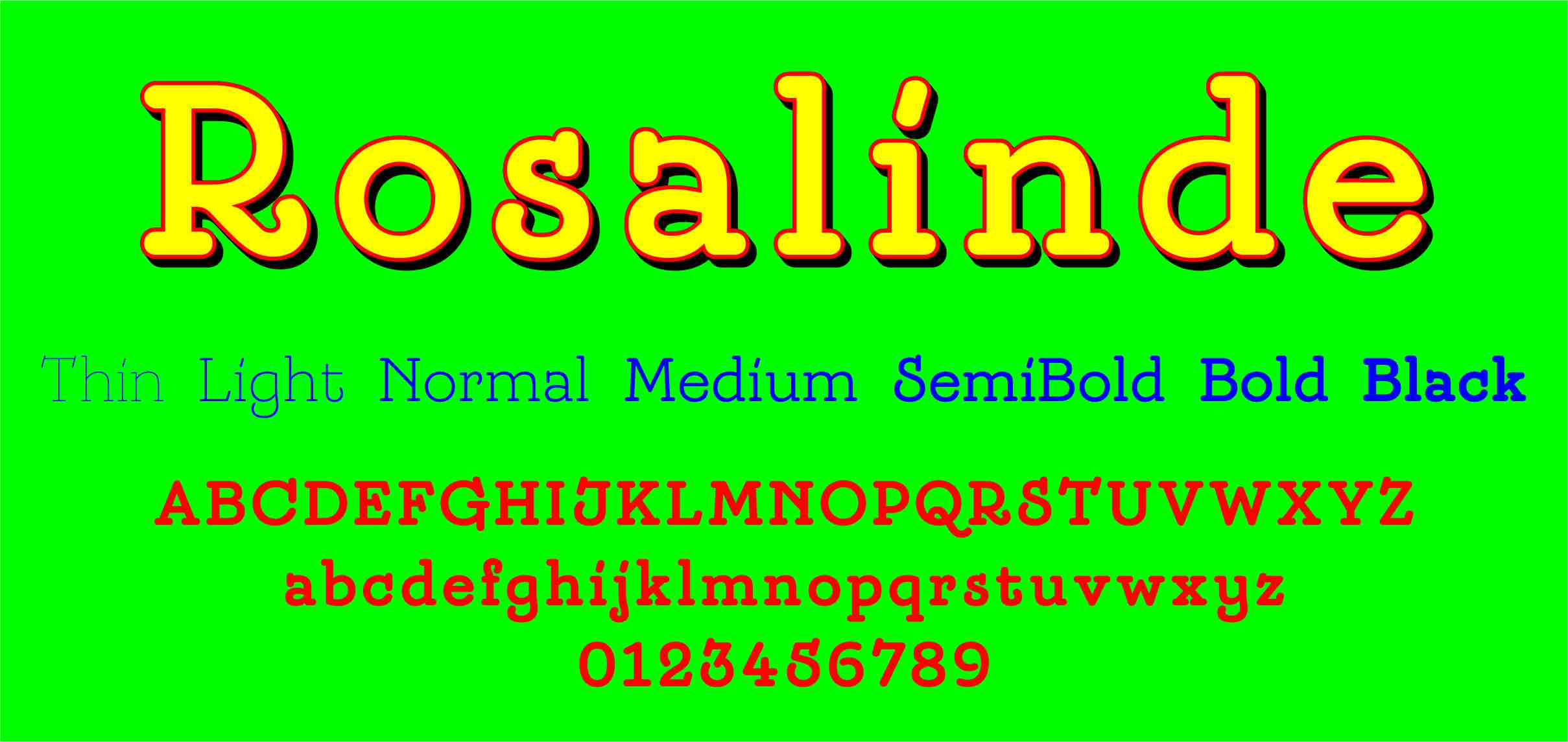
Rosalinde Font
Rosalinde Font is ideal for elegant branding projects, sophisticated wedding invitations, luxury fashion graphics, high-end beauty packaging, romantic greeting cards, boutique hotel signage, artisanal jewelry branding, and refined lifestyle publications.
This exciting Rosalinde Font enchants viewers with its graceful sophistication and timeless elegance that embodies feminine beauty, refined taste, and classical charm. The font's exquisite character and delicate refinement make it an exceptional choice for projects requiring luxury appeal, romantic sophistication, and premium aesthetic quality that resonates with discerning audiences who appreciate exceptional design craftsmanship.
The Rosalinde Font family encompasses multiple refined variations including Regular, Light, Medium, Bold, Italic, and Decorative Script versions, providing designers with comprehensive options for creating sophisticated brand communications and elegantly crafted typographic compositions with authentic feminine appeal.
The sophisticated character of Rosalinde Font makes it particularly valuable for luxury beauty brands, high-end fashion houses, exclusive wedding planners, and premium lifestyle businesses that need to establish elegant brand presence while connecting with affluent female consumers. Its refined styling appeals to women who appreciate luxury experiences and sophisticated aesthetic refinement.
Typography artists choose Rosalinde Font for its exceptional elegance and authentic feminine sophistication across various luxury applications. The font maintains its graceful character from intimate personal correspondence to large luxury retail displays, ensuring consistent brand elegance and refined visual communication throughout all premium touchpoints.
The versatile applications of Rosalinde Font extend from personal luxury stationery to comprehensive high-end brand systems, maintaining its sophisticated character across different scales and premium contexts. This adaptability makes it invaluable for organizations requiring consistent elegant expression across multiple luxury market segments and refined communication channels.
Luxury brands utilize Rosalinde Font to establish distinguished identities that communicate sophistication, feminine elegance, and premium quality in competitive luxury markets. The typeface's refined appeal helps premium organizations differentiate themselves while attracting sophisticated consumers who value elegance, quality craftsmanship, and authentic feminine luxury experiences in their purchasing decisions.